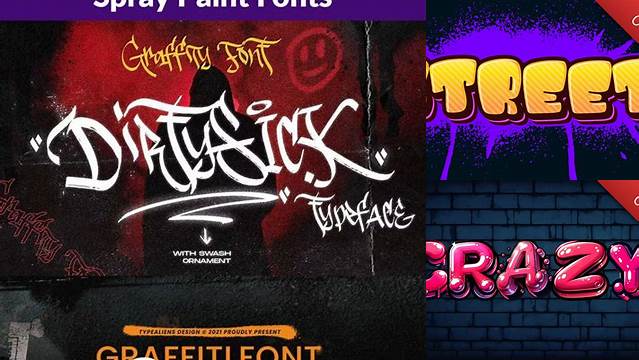
Graffiti Font Generator: Free Online Text Designs
Hey guys! Ever wanted to create some killer graffiti art but didn't know where to start? Or maybe you're a seasoned artist looking for a quick and easy way to experiment with different styles? Well, you've come to the right place! We're diving deep into the world of graffiti font free generators, and trust me, it's a game-changer. These awesome tools allow you to transform ordinary text into eye-catching, urban-inspired designs in just a few clicks. Whether you're designing a logo, creating social media graphics, or just having some fun, graffiti fonts can add that edgy, authentic touch you're looking for. But with so many options out there, it can be overwhelming to know where to begin. That's why we're here to break it all down, explore the best generators, and give you the lowdown on how to use them effectively. So, buckle up, grab your virtual spray can, and let's get started on this creative journey! We'll explore the origins of graffiti, its evolution as an art form, and why graffiti fonts have become so popular in the digital world. We'll also discuss the different styles of graffiti fonts, from the classic bubble letters to the more intricate and stylized designs. Think about the possibilities! You could create personalized birthday cards, design unique t-shirts, or even develop branding materials that truly stand out. The power of graffiti font generators lies in their ability to democratize art, making it accessible to everyone, regardless of their artistic skills. No more struggling with complex design software or spending hours trying to perfect your lettering. With these generators, you can unleash your creativity and bring your vision to life in minutes. We'll also be looking at some tips and tricks for using these generators effectively, ensuring that you get the best possible results. We'll cover things like choosing the right font style for your project, adjusting the size and color, and adding effects to make your design truly pop. So, whether you're a beginner or a pro, there's something here for everyone. Let's dive in and discover the exciting world of graffiti font free generators!
What is a Graffiti Font Generator?
Okay, so what exactly is a graffiti font generator? Simply put, it's a tool that allows you to create text in a graffiti style without having to actually paint it yourself. Think of it as a digital shortcut to street art. These generators typically offer a range of pre-designed graffiti fonts, each with its own unique flair and characteristics. You simply type in your desired text, choose a font, and voila! Your text is instantly transformed into a graffiti masterpiece. But it's more than just a fancy font converter. The best graffiti font generators offer a plethora of customization options, allowing you to tweak the size, color, spacing, and even add effects like shadows, outlines, and drips, just like real graffiti. This level of control is crucial for achieving the specific look and feel you're aiming for. Whether you want a bold, in-your-face design or a more subtle and artistic touch, a good generator will give you the flexibility to experiment and fine-tune your creation. The beauty of these generators lies in their accessibility and ease of use. You don't need to be a graphic designer or have any special skills to create stunning graffiti text. The interfaces are usually intuitive and user-friendly, making the process quick and enjoyable. This opens up a world of possibilities for anyone who wants to incorporate the urban aesthetic into their projects, from social media posts and presentations to logos and merchandise. But beyond the convenience, graffiti font generators also serve as a valuable tool for exploring the art of graffiti itself. By experimenting with different styles and effects, you can gain a deeper appreciation for the intricacies of this art form and even develop your own unique graffiti style. It's a fantastic way to learn about lettering, composition, and the overall visual impact of graffiti art. And let's not forget the sheer fun factor! There's something incredibly satisfying about watching your words transform into vibrant, urban-inspired designs. It's a great way to unleash your creativity, express yourself, and add a touch of street art to your digital world. So, if you're looking for a way to create eye-catching text that's both edgy and authentic, a graffiti font generator is definitely worth exploring. It's a powerful tool that puts the art of graffiti at your fingertips.
Top Free Graffiti Font Generators Online
Alright, let's get to the good stuff! You're probably itching to try out these graffiti font generators, so let's take a look at some of the top free options available online. There are tons of these tools out there, but we've hand-picked a few that stand out for their features, ease of use, and the quality of their output. First up, we have Graffiti Generator. This is a classic choice for a reason. It's incredibly simple to use, with a clean interface and a range of cool graffiti fonts to choose from. You can easily adjust the size, color, and spacing of your text, and even add a background image for a more realistic effect. It's a great option for beginners who want to get started quickly. Next on our list is Cool Text. Don't let the name fool you – this site offers more than just cool text. It has a dedicated graffiti font generator section with a variety of styles, from bubble letters to wildstyle designs. What's particularly neat about Cool Text is the level of customization it offers. You can adjust the font size, color, outline, shadow, and even add textures and gradients. This makes it a fantastic choice for those who want to fine-tune their designs and create something truly unique. Another excellent option is Font Graffiti. This generator boasts a wide selection of fonts, including some truly authentic-looking graffiti styles. It also allows you to add effects like drips, splatters, and shadows, giving your text a realistic, street-art vibe. One of the standout features of Font Graffiti is its ability to generate multiple versions of your text at once, allowing you to quickly compare different styles and choose the one you like best. For those who prefer a more modern and user-friendly interface, TextGiraffe is worth checking out. This generator offers a sleek design and a range of stylish graffiti fonts. It also includes some handy features like a preview window that updates in real-time as you make changes. TextGiraffe is a great option for creating eye-catching social media graphics and logos. Finally, we have Graff Writer. This generator is a bit more advanced than the others, offering a wider range of customization options and effects. You can adjust the letter spacing, kerning, and line height, giving you precise control over the appearance of your text. Graff Writer also allows you to add multiple layers of text and effects, enabling you to create complex and intricate designs. So, there you have it – a rundown of some of the best free graffiti font generators online. Each of these tools has its own strengths and features, so it's worth trying them out to see which one works best for you. Remember, the key is to experiment and have fun! Don't be afraid to try different fonts, colors, and effects until you find the perfect combination for your project.
How to Use a Graffiti Font Generator: A Step-by-Step Guide
Okay, so you've found a graffiti font generator you like – awesome! But now what? Don't worry, using these tools is usually super simple. Let's walk through a step-by-step guide to get you creating amazing graffiti text in no time. First things first, head over to the website of the generator you've chosen. Most of these tools have a pretty straightforward layout, so you should be able to find the text input area easily. This is where you'll type in the text you want to transform into graffiti. Go ahead and type in your word, phrase, or even a whole sentence – the choice is yours! Once you've entered your text, the next step is to choose a graffiti font. This is where the fun really begins! Most generators offer a variety of fonts, each with its own unique style and personality. Scroll through the options and see which ones catch your eye. Do you want a classic bubble letter look? Or maybe something more edgy and stylized? Don't be afraid to experiment! Click on a font to select it, and you should see your text instantly update with the new style. Now comes the customization part. This is where you can really make your graffiti text your own. Most generators offer options to adjust the size, color, and spacing of your text. You might also find options to add effects like shadows, outlines, drips, and even textures. Take some time to play around with these settings and see how they affect the overall look of your design. Changing the color can have a huge impact, so try out different combinations to see what works best. Adding a shadow can give your text more depth and dimension, while an outline can make it stand out even more. Don't be afraid to get creative and push the boundaries! Some generators also allow you to add a background image to your graffiti text. This can be a great way to create a more realistic effect or to integrate your text into a specific design. If the generator offers this option, you can usually upload an image from your computer or choose from a selection of pre-designed backgrounds. Once you're happy with your design, it's time to save it. Most generators offer a download button that allows you to save your graffiti text as an image file, such as a PNG or JPG. Choose the file format that best suits your needs and click the download button. Your graffiti text is now ready to be used in your projects, whether it's for social media graphics, logos, or anything else you can imagine! And that's it! You've successfully created your own graffiti text using a free generator. Remember, the key is to experiment and have fun. Don't be afraid to try different fonts, colors, and effects until you find the perfect combination for your vision.
Tips for Creating Stunning Graffiti Text
Okay, you've got the basics down, but how do you take your graffiti text from good to amazing? Here are some tips and tricks to help you create truly stunning designs that will turn heads. First and foremost, choose the right font for your project. Not all graffiti fonts are created equal. Some are bold and impactful, perfect for headlines and logos, while others are more subtle and artistic, ideal for adding a touch of urban flair to your designs. Consider the overall tone and message you want to convey, and choose a font that reflects that. For example, if you're creating a design for a hip-hop event, you might want to go for a bold, blocky font with lots of sharp angles. On the other hand, if you're designing a birthday card, a more playful and rounded font might be a better choice. Experiment with colors. Color is a crucial element in graffiti art, and it can make a huge difference in the overall impact of your text. Don't be afraid to use bold, vibrant colors that stand out and grab attention. Consider using contrasting colors for the text and the background to create a visually striking effect. You can also experiment with gradients and textures to add depth and dimension to your designs. Pay attention to spacing. The spacing between letters and words can have a significant impact on the readability and overall aesthetic of your graffiti text. If the letters are too close together, they can look crowded and difficult to read. If they're too far apart, the text can look disjointed and disconnected. Most graffiti font generators allow you to adjust the letter spacing, so take some time to fine-tune it until you're happy with the result. Add effects to enhance your design. Effects like shadows, outlines, and drips can add a realistic, street-art vibe to your graffiti text. Experiment with different effects to see how they can enhance your design. A subtle shadow can give your text more depth, while a bold outline can make it stand out even more. Drips can add a touch of authenticity and make your text look like it was just painted on a wall. Consider the context. Think about where your graffiti text will be used and design accordingly. If you're creating a logo, you'll want to keep it relatively simple and easy to read. If you're designing a social media graphic, you have more freedom to experiment with bold colors and intricate designs. Don't be afraid to break the rules. Graffiti art is all about self-expression and pushing boundaries, so don't be afraid to break the rules and try something new. Experiment with different fonts, colors, and effects until you find a style that's uniquely yours. And most importantly, have fun! Creating graffiti text should be an enjoyable and creative process. So, relax, let your imagination run wild, and see what you can create.
Unleash Your Creativity with Graffiti Fonts
So, guys, we've covered a lot of ground in this article, from the basics of graffiti font generators to tips and tricks for creating stunning designs. Now it's time for you to unleash your creativity and start experimenting! The world of graffiti fonts is vast and exciting, offering endless possibilities for self-expression and artistic exploration. Whether you're a seasoned designer or a complete beginner, these tools can help you bring your vision to life and add a touch of urban flair to your projects. Remember, the key to creating great graffiti text is to have fun and experiment. Don't be afraid to try new things, push boundaries, and break the rules. The more you play around with different fonts, colors, and effects, the more you'll develop your own unique style and find what works best for you. And the best part is, you don't need any special skills or expensive software to get started. Free graffiti font generators make it easy for anyone to create amazing designs in just a few clicks. So, whether you're designing a logo, creating social media graphics, or just want to add some personality to your messages, graffiti fonts are a fantastic way to do it. Think about all the possibilities! You could create eye-catching posters, design personalized merchandise, or even add a touch of street art to your website. The only limit is your imagination. And with the abundance of free graffiti font generators available online, there's no reason not to give it a try. So, go ahead, explore the world of graffiti fonts, and discover the urban artist within you. We hope this article has inspired you to get creative and start making some amazing designs. Remember to share your creations with us – we'd love to see what you come up with! And most importantly, have fun and let your creativity flow!